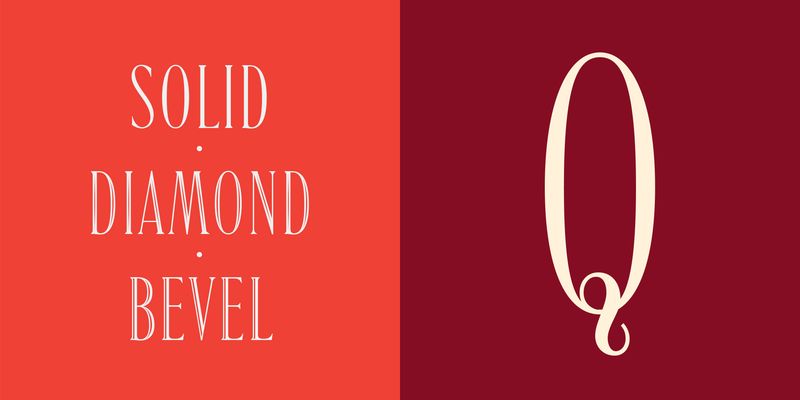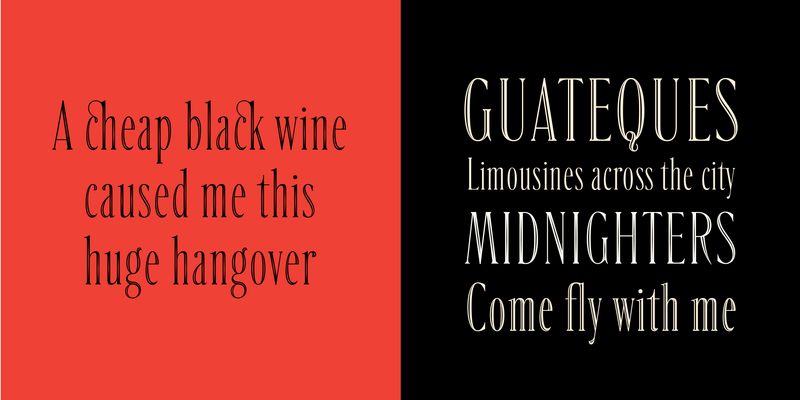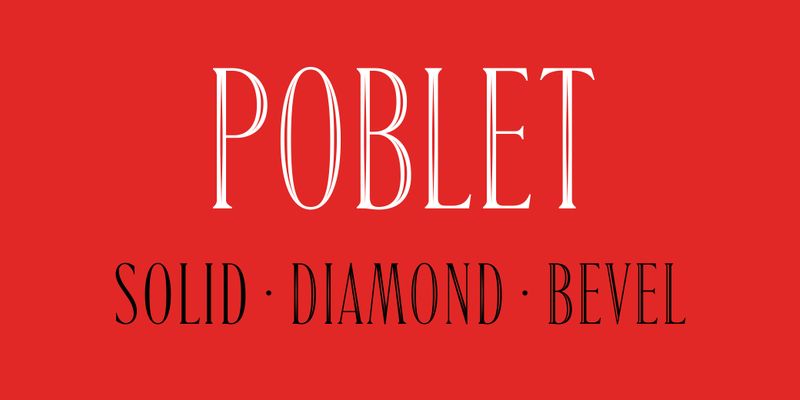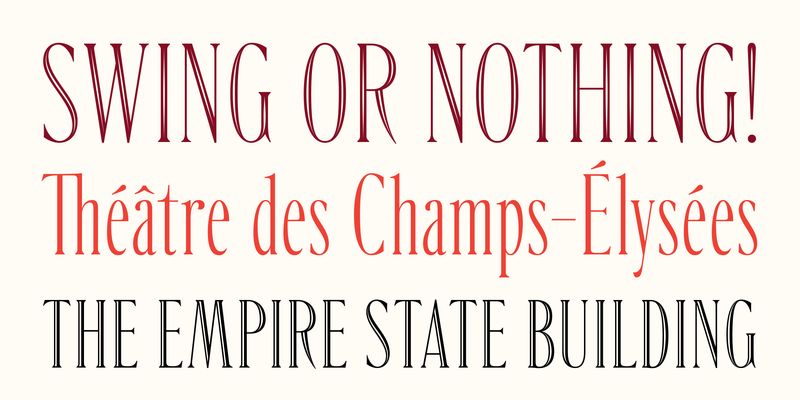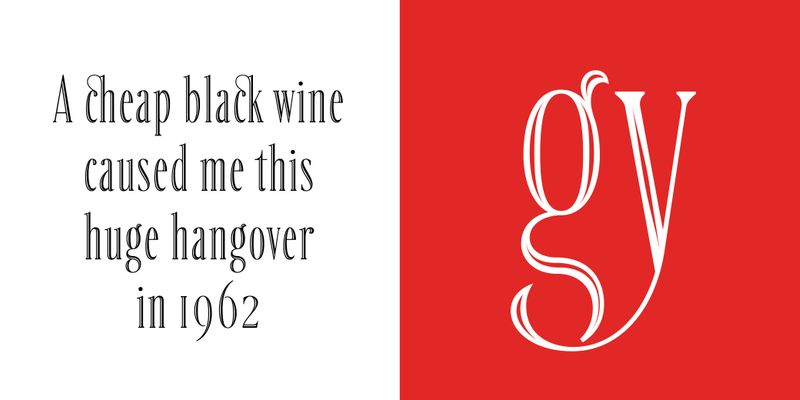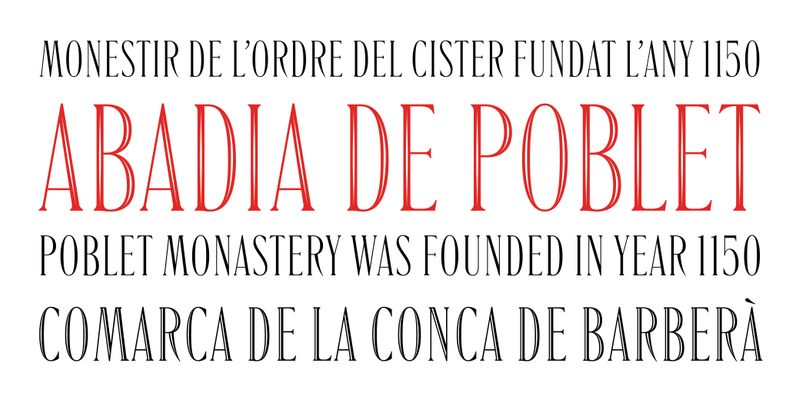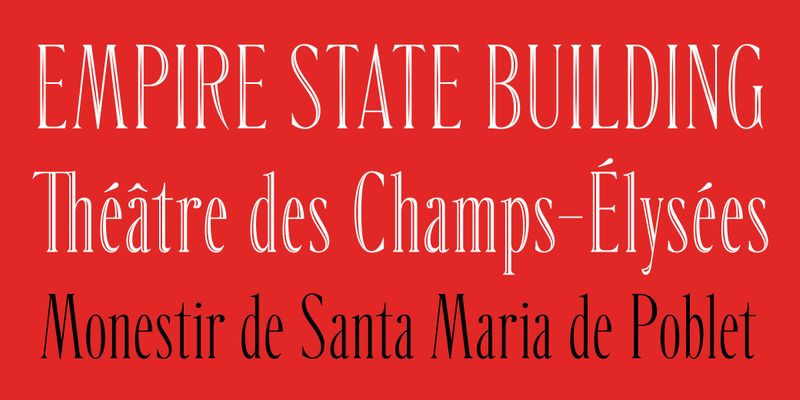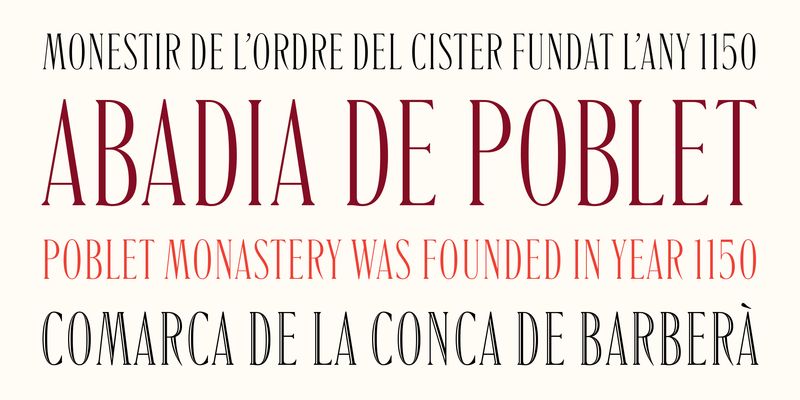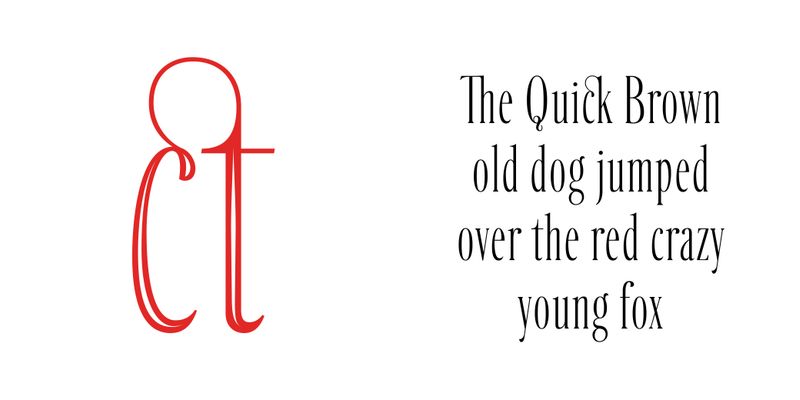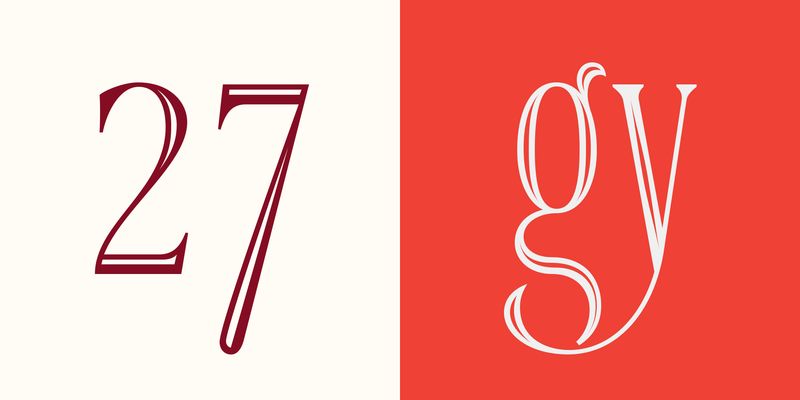
Poblet is a display typeface designed for titling and short text composition, drawing inspiration from the classic Elzevier Condensed.
Named after the renowned Poblet Abbey in Tarragona, Spain, this type family embodies the rich history and architectural beauty of the Cistercian monastery.
Poblet Abbey, a UNESCO World Heritage site, is known for its stunning Gothic architecture and serene surroundings, influencing the typeface’s elegant and refined design. The Poblet family consists of three distinct styles, each offering a unique design to suit various typographic needs.